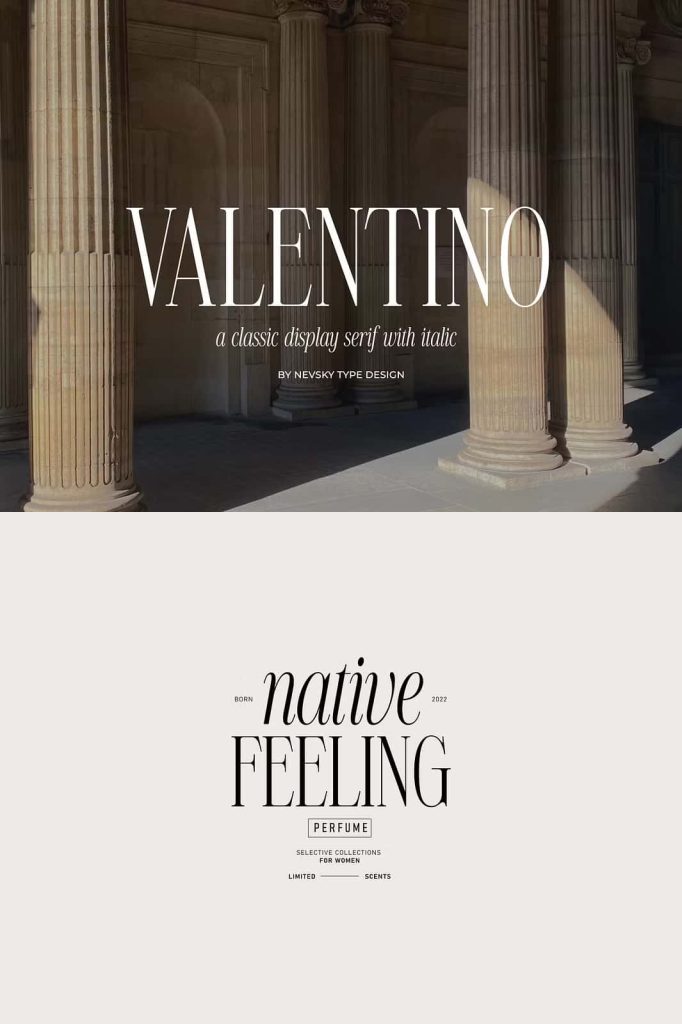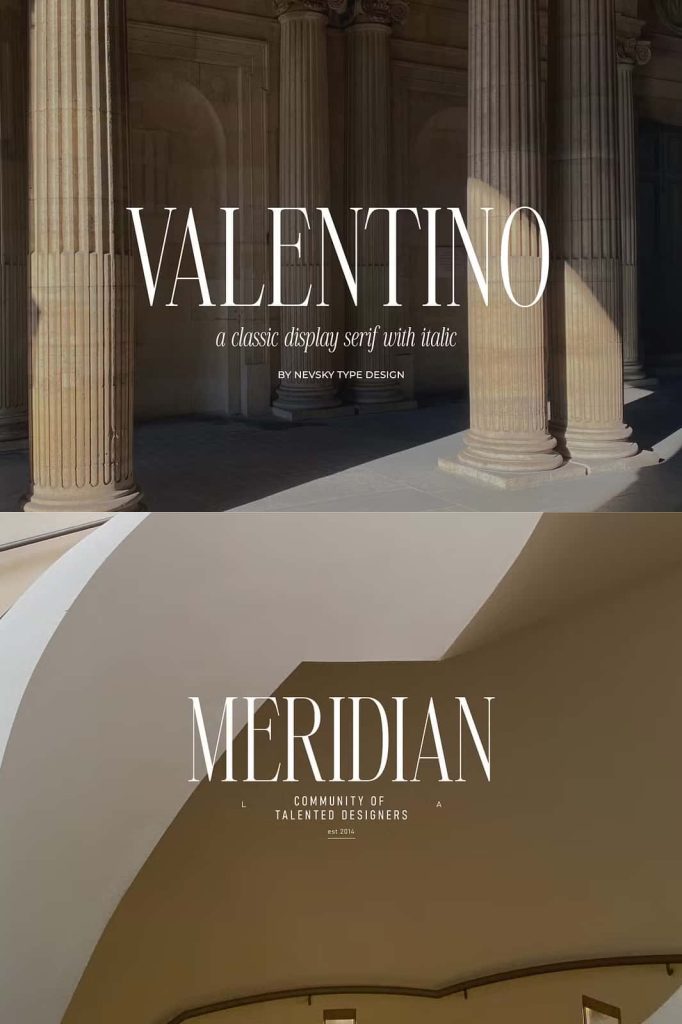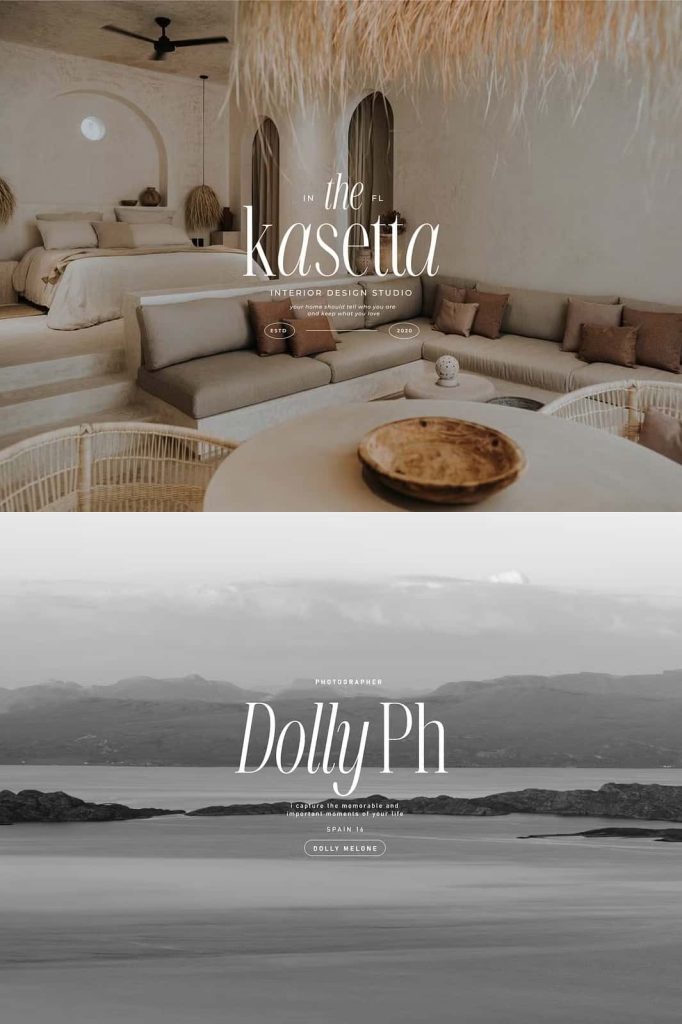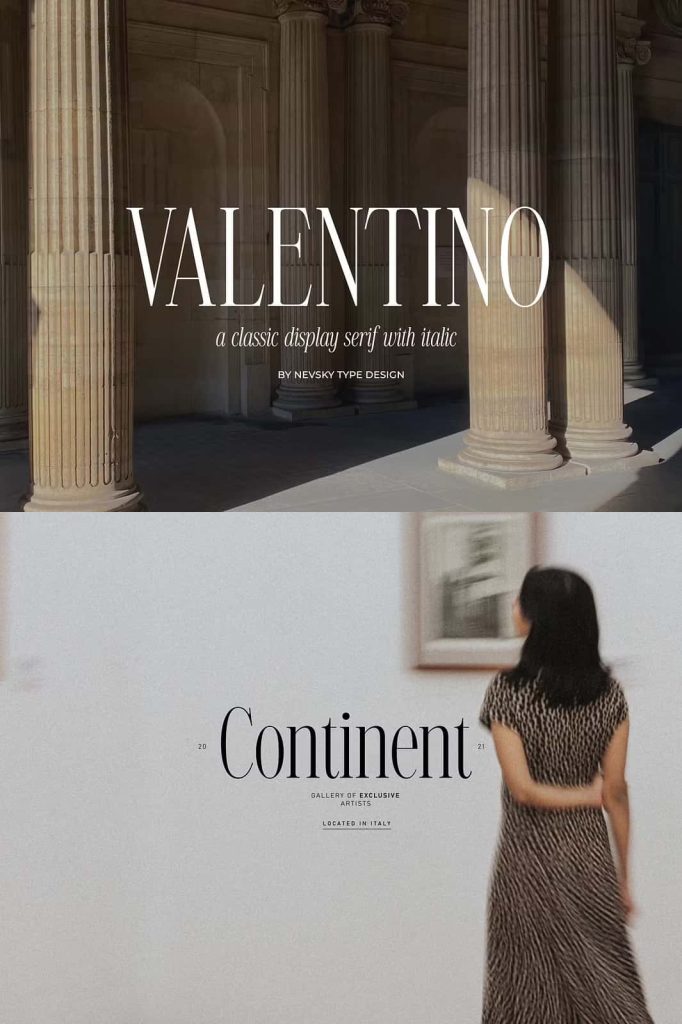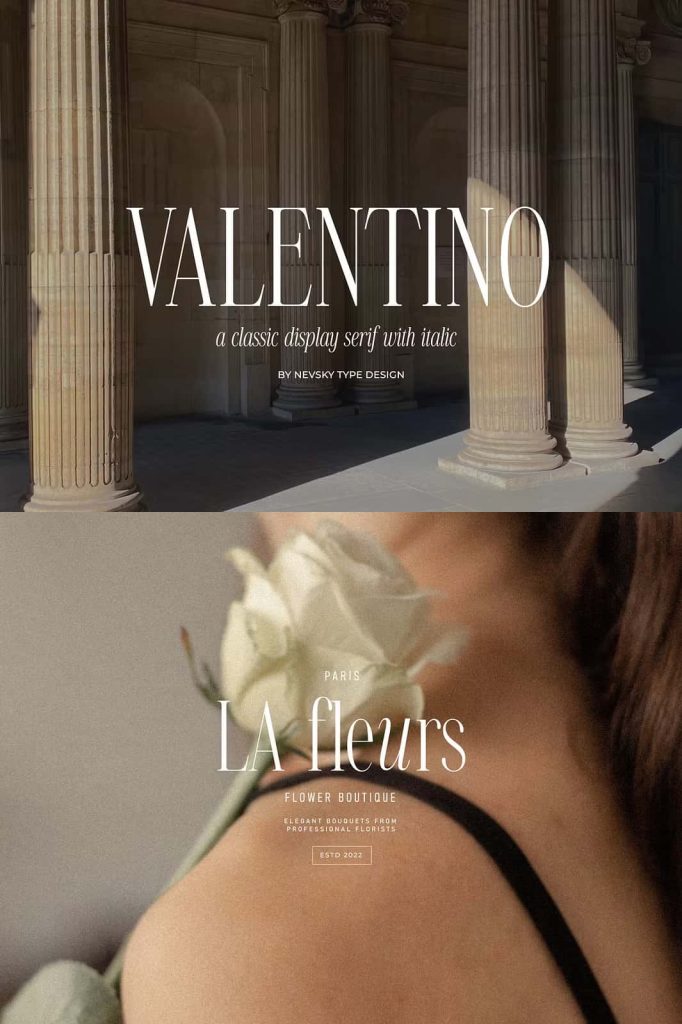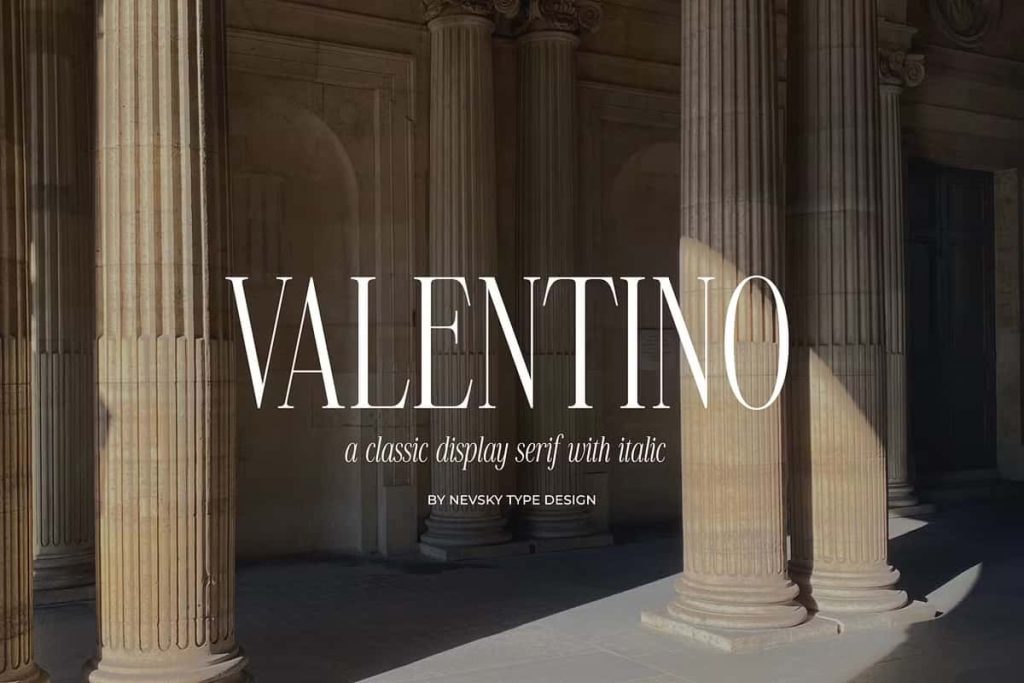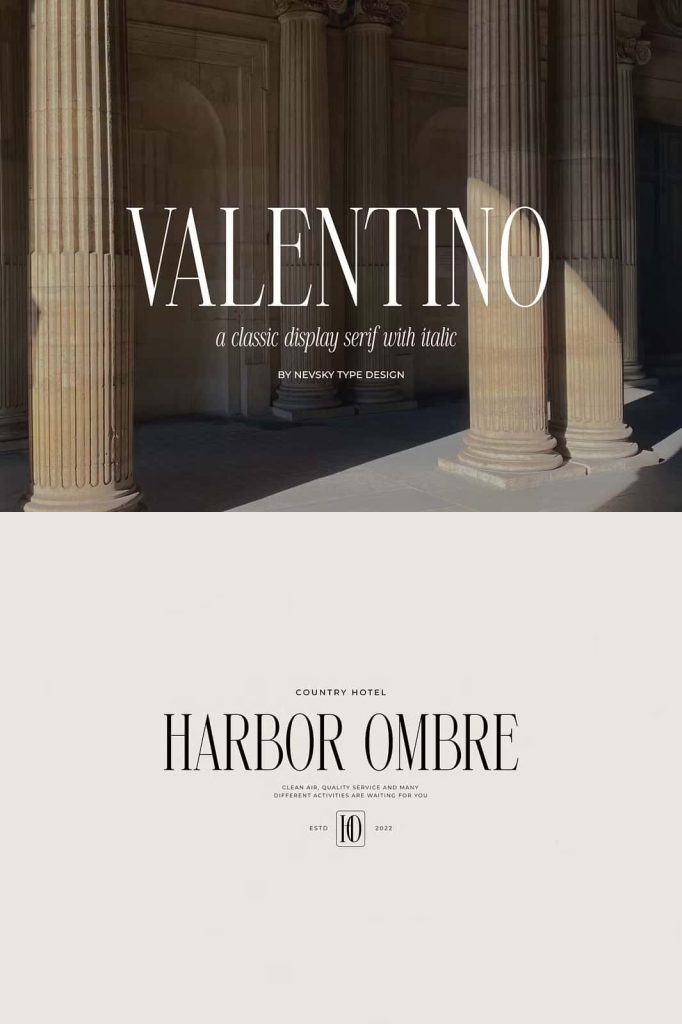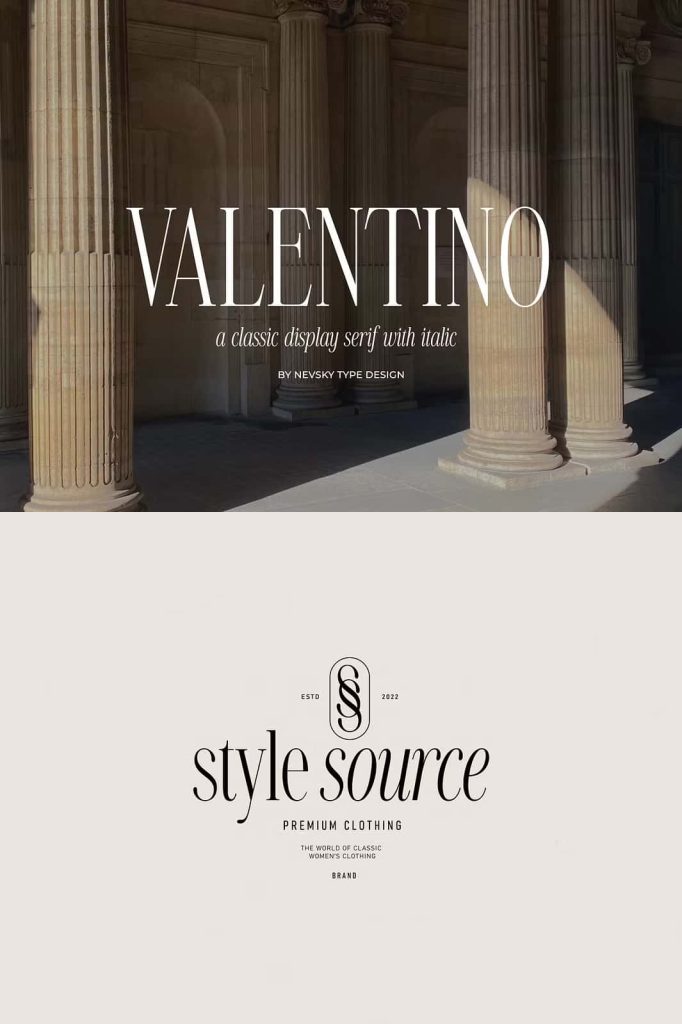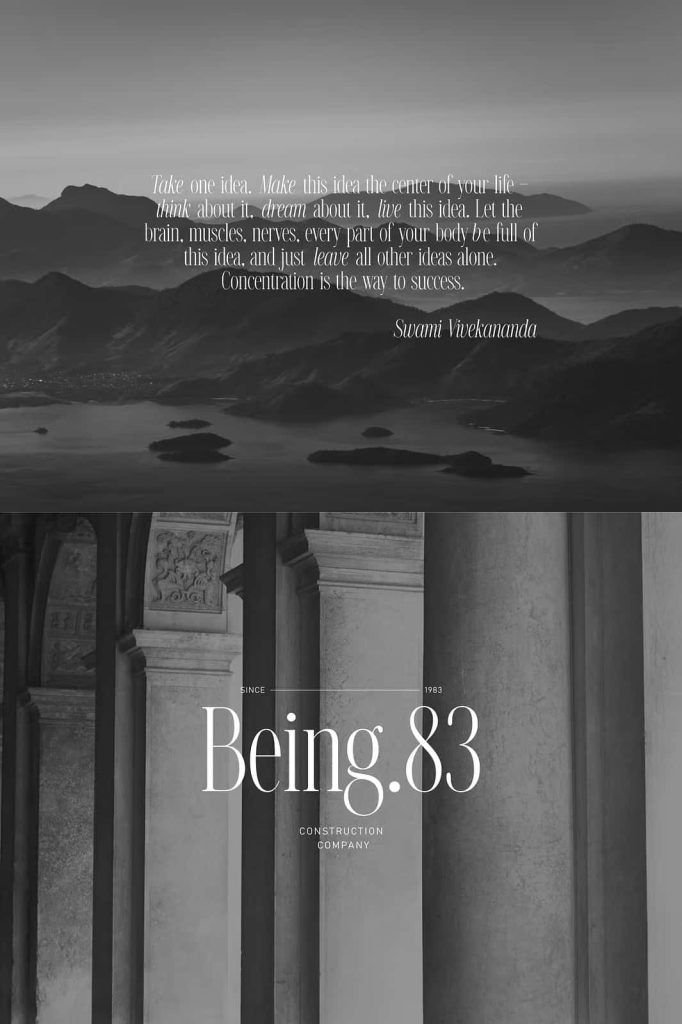
NT VALENTINO Serif Font – Elegant Luxury Typeface for Premium Design Projects
NT VALENTINO is a sophisticated serif font designed to bring elegance, refinement, and timeless beauty to every creative project. Featuring graceful letterforms and carefully balanced proportions, this typeface delivers a luxurious appearance that instantly elevates branding, editorial layouts, packaging, and high-end visual identities. Its classic serif construction blends traditional typography with modern aesthetics, making it a versatile choice for designers who value both style and readability.
Whether you are building a luxury brand, designing a premium logo, creating stylish invitations, or developing an editorial publication, NT VALENTINO provides the professional appearance needed to leave a lasting impression. Every character reflects precision and sophistication, allowing your typography to communicate confidence, quality, and exclusivity.
Luxury design depends on details, and typography plays one of the most important roles in creating an unforgettable visual experience. NT VALENTINO helps designers establish a refined atmosphere through elegant letterforms that feel graceful without becoming overly decorative. The result is a serif font that performs beautifully across both digital and print applications.
A Timeless Serif Font with Modern Elegance
NT VALENTINO combines the beauty of traditional serif typography with the clean aesthetics demanded by today’s creative industries. Its carefully crafted letterforms feature refined curves, balanced spacing, and elegant proportions that create a polished appearance in every composition.
Unlike decorative fonts that limit design flexibility, NT VALENTINO maintains a clean and professional structure that adapts effortlessly to numerous creative styles. Its sophisticated design allows it to complement minimalist layouts while also enhancing luxurious and highly detailed compositions.
The font captures the essence of timeless elegance, making it suitable for projects that require a premium visual identity. From upscale fashion brands to luxury hospitality businesses, NT VALENTINO helps communicate quality and professionalism with every letter.
Create Strong Luxury Branding
Typography serves as the foundation of successful branding, and NT VALENTINO provides everything needed to build a memorable premium identity. Its refined serif style creates an immediate sense of trust, prestige, and sophistication that resonates with luxury audiences.
Designers can confidently use NT VALENTINO for logos, brand guidelines, business cards, product labels, packaging, advertising materials, and marketing campaigns. The font delivers exceptional visual consistency while adding an elegant personality that distinguishes brands from their competitors.
Luxury branding often depends on subtle details rather than excessive decoration. NT VALENTINO embraces this philosophy by offering clean letterforms that project confidence through simplicity and excellent craftsmanship.
Perfect for Editorial and Publishing Design
Editorial projects require typography that remains beautiful while maintaining excellent readability. NT VALENTINO achieves this balance through carefully proportioned characters that perform exceptionally well in headlines, feature titles, magazine covers, book covers, and promotional publications.
The font’s elegant appearance naturally enhances high-fashion magazines, luxury catalogs, lifestyle publications, and premium brochures. Its sophisticated design attracts attention without overwhelming the surrounding layout, allowing photography and typography to work together harmoniously.
Whether used for large display text or supporting headings, NT VALENTINO adds refinement and visual hierarchy that strengthens every editorial composition.
Ideal for Fashion and Beauty Projects
Fashion and beauty brands rely heavily on elegant typography to communicate exclusivity and style. NT VALENTINO delivers exactly that through graceful serif letterforms that complement luxury products and premium marketing materials.
The font pairs beautifully with high-quality photography, minimalist packaging, and sophisticated branding systems. Fashion designers, cosmetic brands, jewelry companies, perfume collections, skincare businesses, and luxury retailers can all benefit from its refined personality.
Its timeless style allows brands to maintain a polished appearance that remains relevant regardless of changing design trends.
Versatile Across Print and Digital Media
NT VALENTINO offers outstanding versatility, allowing designers to use the font across numerous creative platforms without sacrificing quality or consistency. The elegant serif structure adapts effortlessly to both traditional print production and modern digital interfaces.